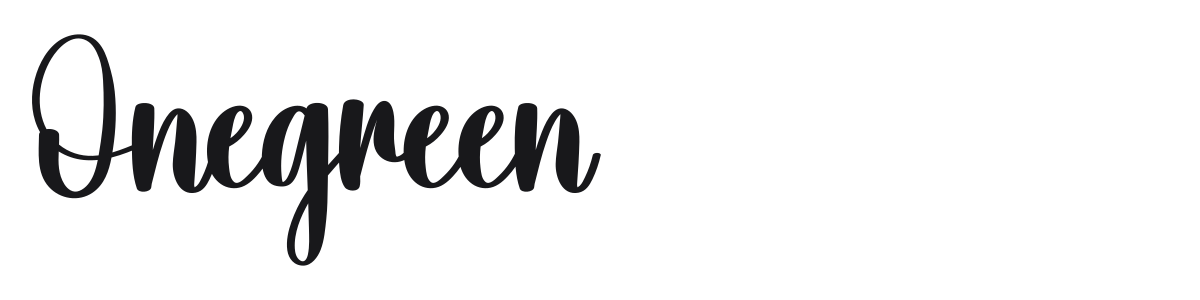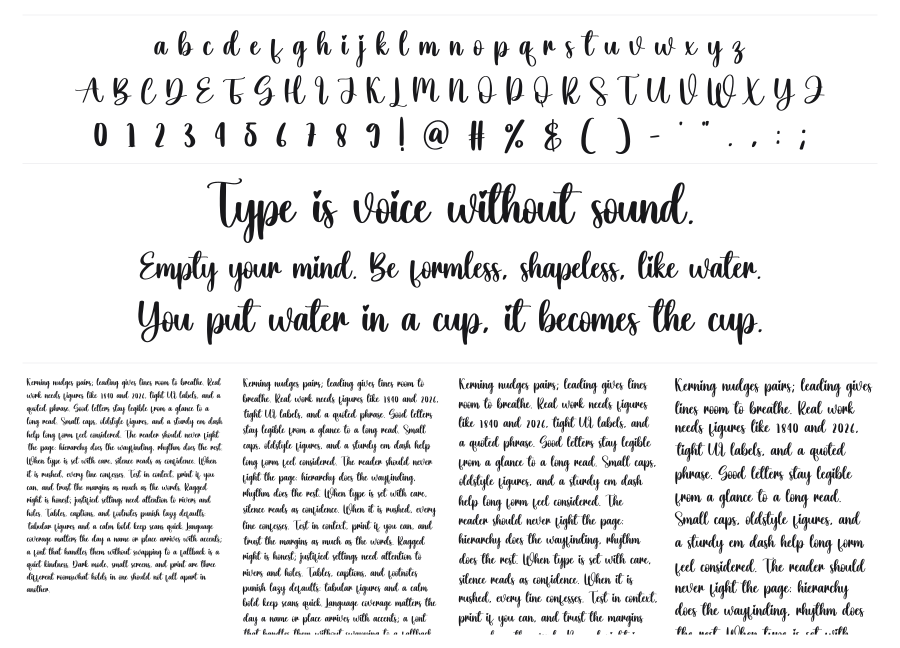
Onegreen
Onegreen is a lively casual script with a bouncy baseline and expressive stroke contrast between thick downstrokes and delicate hairline upstrokes. Its generous loops, connected letters, and decorative swash details give it that natural hand-penned feel popular in wedding stationery, lifestyle branding, and social media graphics. The energy is warm and romantic without tipping into overly formal territory.